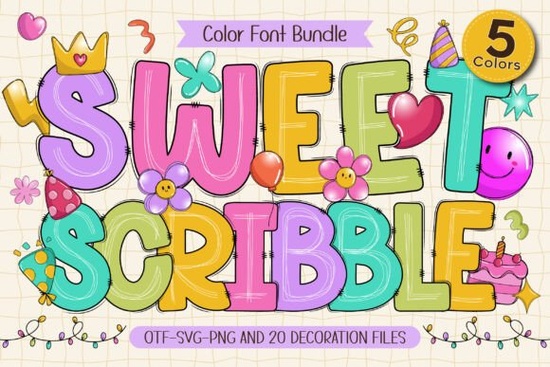
If you're looking for a hand-drawn font that feels cheerful, approachable, and ready to use right away Sweet Scribble Font fits the bill. It’s not overly technical or fussy: just friendly, chunky letters with soft edges and built-in color. Each character comes pre-filled with one of five bright, coordinated hues no extra steps needed to add vibrancy. That makes it especially handy if you’re designing quickly for real-life projects like classroom posters, birthday banners, or printable party kits.
What kind of projects work best with Sweet Scribble?
This isn’t a font meant for formal reports or corporate websites. It shines where warmth and personality matter most: in spaces made for kids, celebrations, learning, and handmade charm. Think of it as your go-to when you want text to feel like part of the illustration not something added on top.
- Birthday invitations and thank-you cards that match the energy of a child’s party
- Classroom materials, like name tags, behavior charts, or reading corner signs
- Scrapbooking pages where handwritten texture helps tell a story
- Print-on-demand products, such as mugs, tote bags, or stickers especially those aimed at teachers or parents
- DIY party decor, including cupcake toppers, photo booth props, and banner letters
The included set of 20 doodle-style cliparts like stars, hearts, clouds, and little arrows pairs naturally with the font’s rhythm. You can layer them behind words, tuck them into corners, or scatter them across layouts without worrying about mismatched line weights or tone.
How does Sweet Scribble compare to other colorful fonts?
Unlike some multicolor fonts that rely on OpenType features or require specific software setups, Sweet Scribble works in most design apps as a standard TTF/OTF file. You type normally, and each letter appears in its assigned color no manual recoloring needed. That simplicity matters whether you’re using Canva, Cricut Design Space, Affinity Designer, or even Google Docs (with a compatible plugin).
It also avoids the “too-cute” trap some playful fonts fall into. The rounded shapes are generous but not overwhelming; the colors are saturated but not jarring. If you’ve tried other options like the Sweet Scribble Font or the Composition Book Pattern Pastel Font, you’ll notice how well Sweet Scribble balances visual interest with readability even at smaller sizes.
For example, if you’re building a themed lesson plan bundle for elementary teachers, pairing Sweet Scribble with subtle pastel backgrounds (like those found in the composition book pattern collection) creates cohesion without competing for attention.
Who’s this font really for?
Small business owners who sell printable planners or classroom resources will appreciate how fast it speeds up mockup creation. Crafters making custom greeting cards or fabric labels can drop it straight into their cutting machine software. Teachers preparing weekly newsletters or bulletin board displays get instant visual lift without needing design training.
Where to use it and where to step back
Use it where legibility isn’t strained by context: headlines, short phrases, labels, and decorative text. Avoid long paragraphs or fine print it’s designed to be seen, not scanned.
You’ll also find it pairs well with clean sans-serifs (for contrast) or simple line art icons (to keep the focus light and joyful). For more texture-based variety, consider browsing other colorful fonts or hand-drawn fonts on Creative Fabrica but Sweet Scribble stands out for its all-in-one practicality.
One last note: because it includes multiple color variants baked in, it saves time over building custom color palettes from scratch. That’s especially helpful if you’re creating product listings for Etsy or Redbubble and want consistent branding across thumbnails, banners, and mockups.